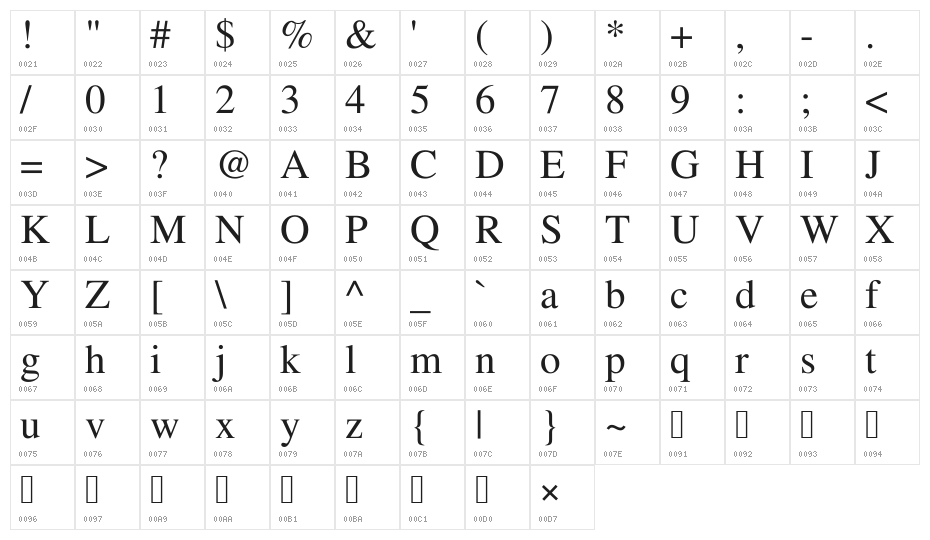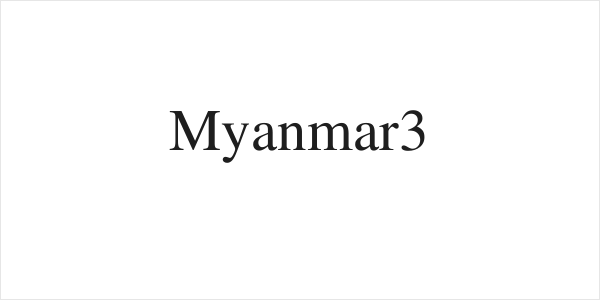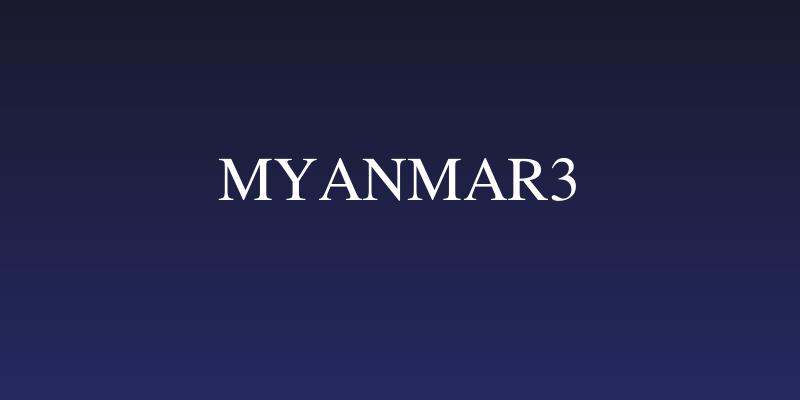
Myanmar3 Font
✎ Serif
| Estilo general | Classic |
| Caso de uso | Headlines, Body text, Logos |
| Proyectos propuestos | Ideal for use in editorial design, book publishing, formal invitations, corporate branding, and any project requiring a touch of elegance and tradition. |